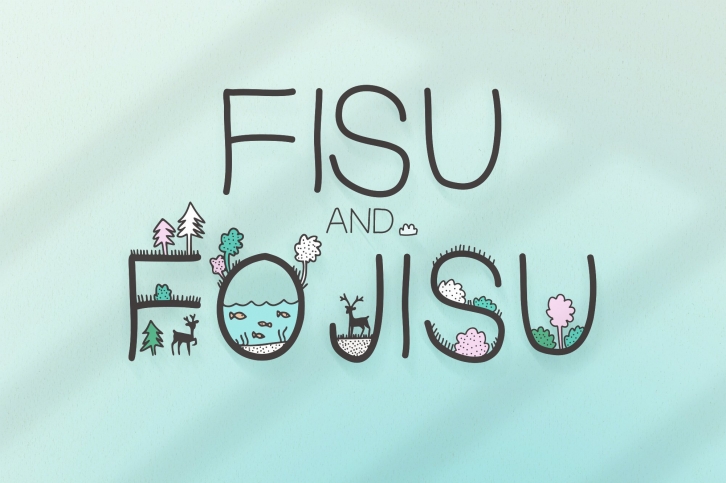
Fisu and Fojisu is a beautiful font that was designed by DIGI Potwor. It's a great choice for designers and creatives who need such a font. It was released on September 20, 2020 and the file size is 6.75 MB. Fisu and Fojisu may give a more youthful, expressive and casual look to your project. It is a very beautiful, refined, elegant, and high-quality font.